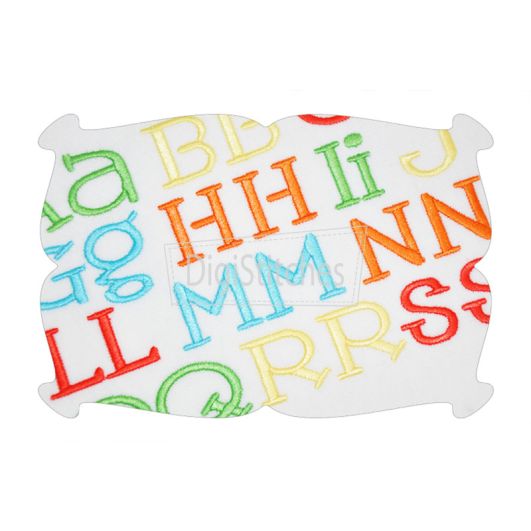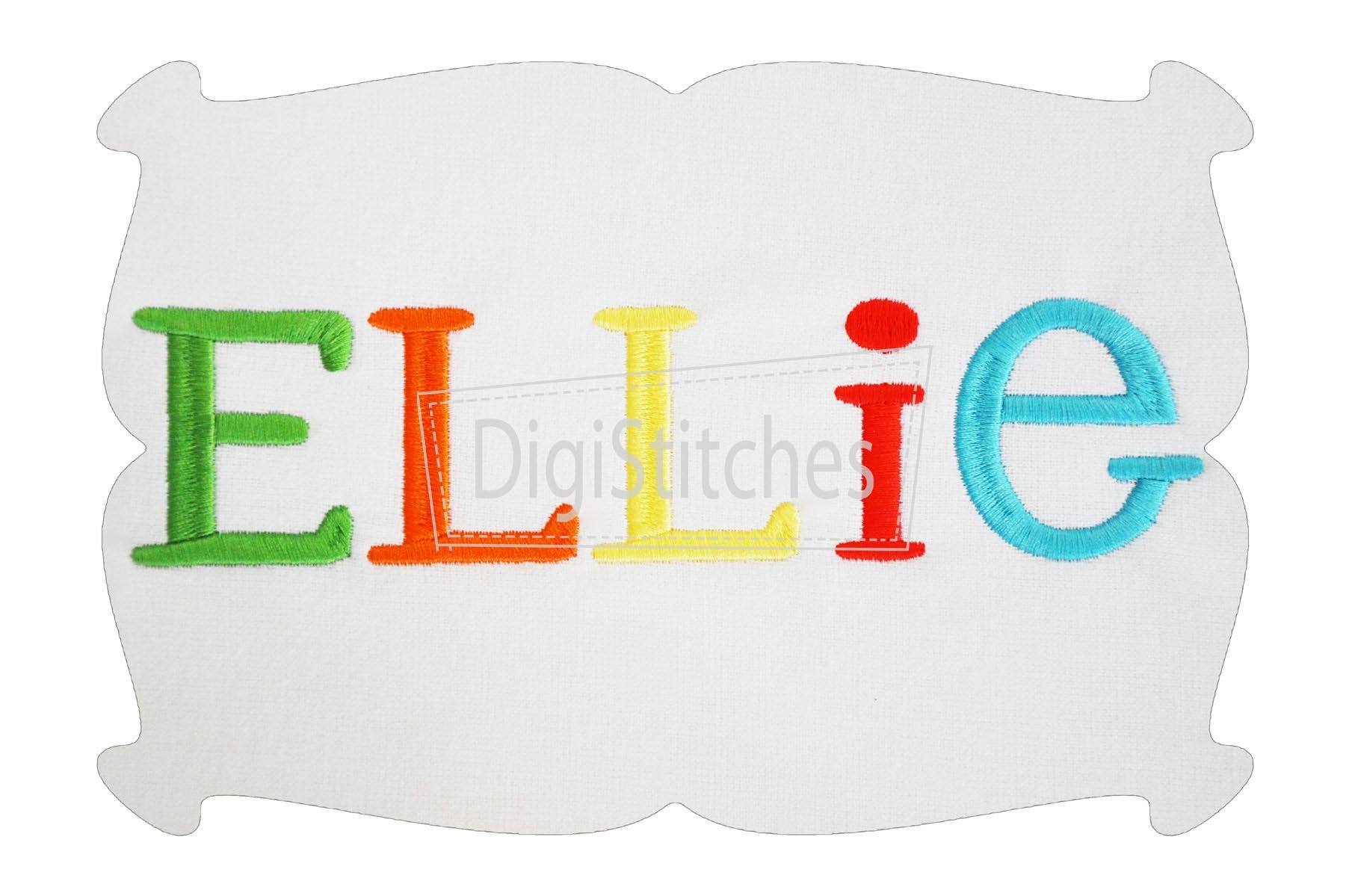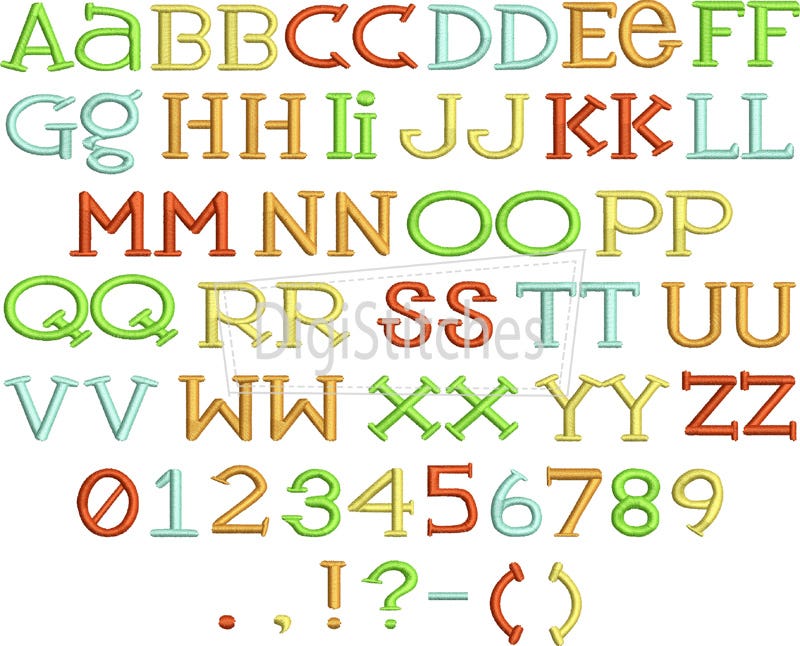
Party Time Satin Stitch Embroidery Font
Party Time Embroidery Font
Looking for a fun font? A wonky mix of upper and lower case letters!
The font features bold letters that really stand out on t-shirts, beach towels and projects.
The .75, 1.0, 1.25 and 1.5 inch sizes are all satin columns as shown above.
Upper Case letters A thru Z, lower case letters a thru z, numbers 0-9 and punctuation as shown.